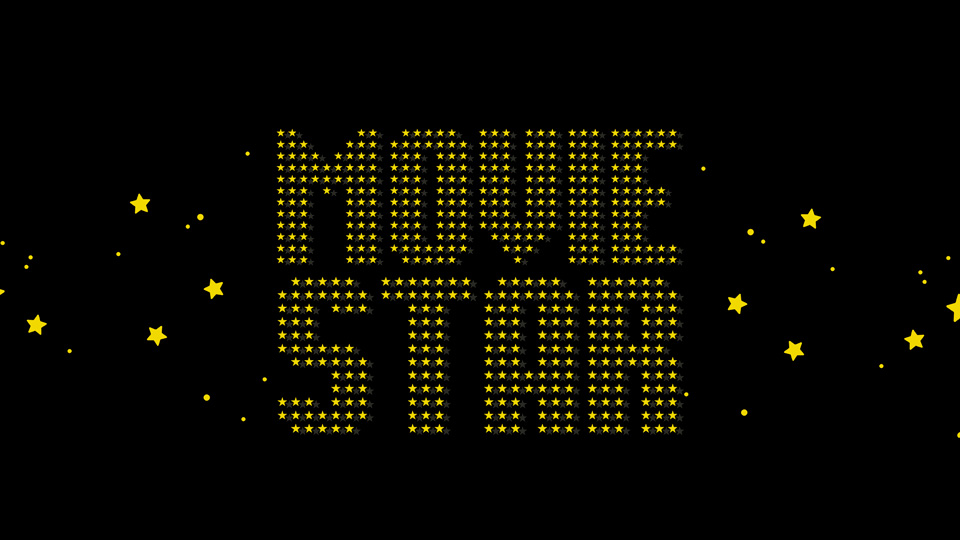
Movie Star is a decorative typeface with color stars pattern. Great for posters, covers, packaging, invitations, websites, T-shirts and more.
Movie Star is has only unaccented capital letters, numbers and minimal punctuation.